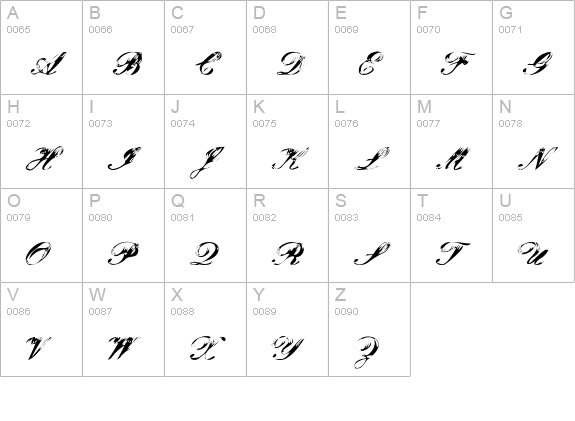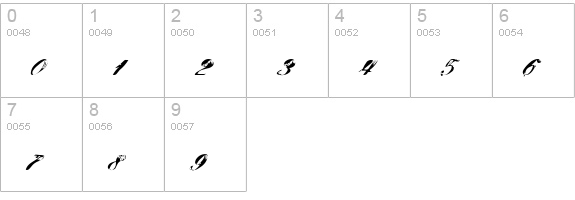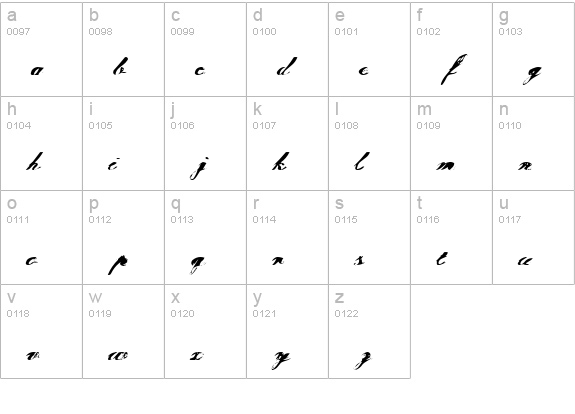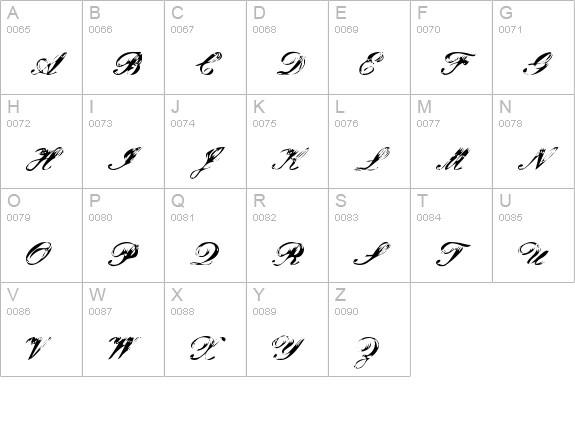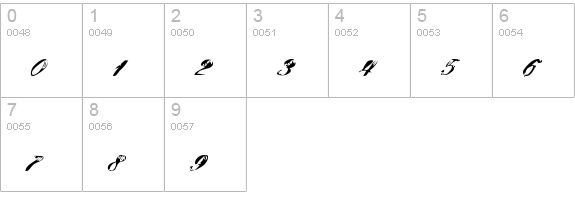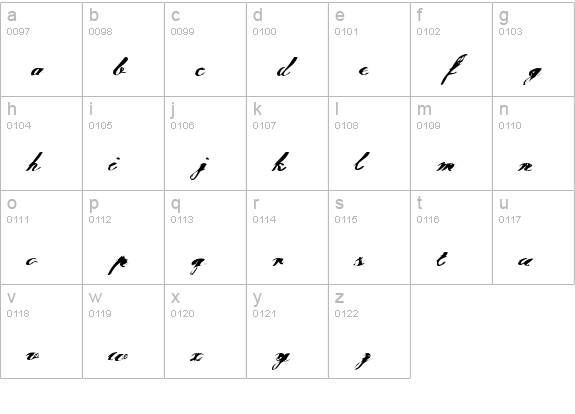
Tragedia Font Details
Tragedia font is a stunning display typeface that effortlessly captures the essence of tragedy and drama. With its elegant and bold letterforms, this font exudes a sense of timeless beauty and sophistication. Perfect for adding a touch of elegance to any design project, Tragedia font is sure to make a lasting impression. Designed with meticulous attention to detail, Tragedia font features intricate curves and sharp edges that create a visually striking and captivating appearance. Its unique and artistic design makes it a versatile choice for various creative applications, such as logos, headlines, posters, and more. One of the best things about Tragedia font is that it is available for free download at FontsMarket.com. Whether you are a professional designer or just starting out, this font allows you to access its exceptional quality without any cost. Its availability on FontsMarket.com ensures that you can easily obtain this font and incorporate it into your projects without any hassle. Tragedia font's versatility, combined with its free availability, makes it a valuable asset for designers and creatives alike. Its timeless appeal and exceptional design make it a must-have font for anyone looking to add a touch of elegance and drama to their designs. So why wait? Download Tragedia font now and unleash your creativity.